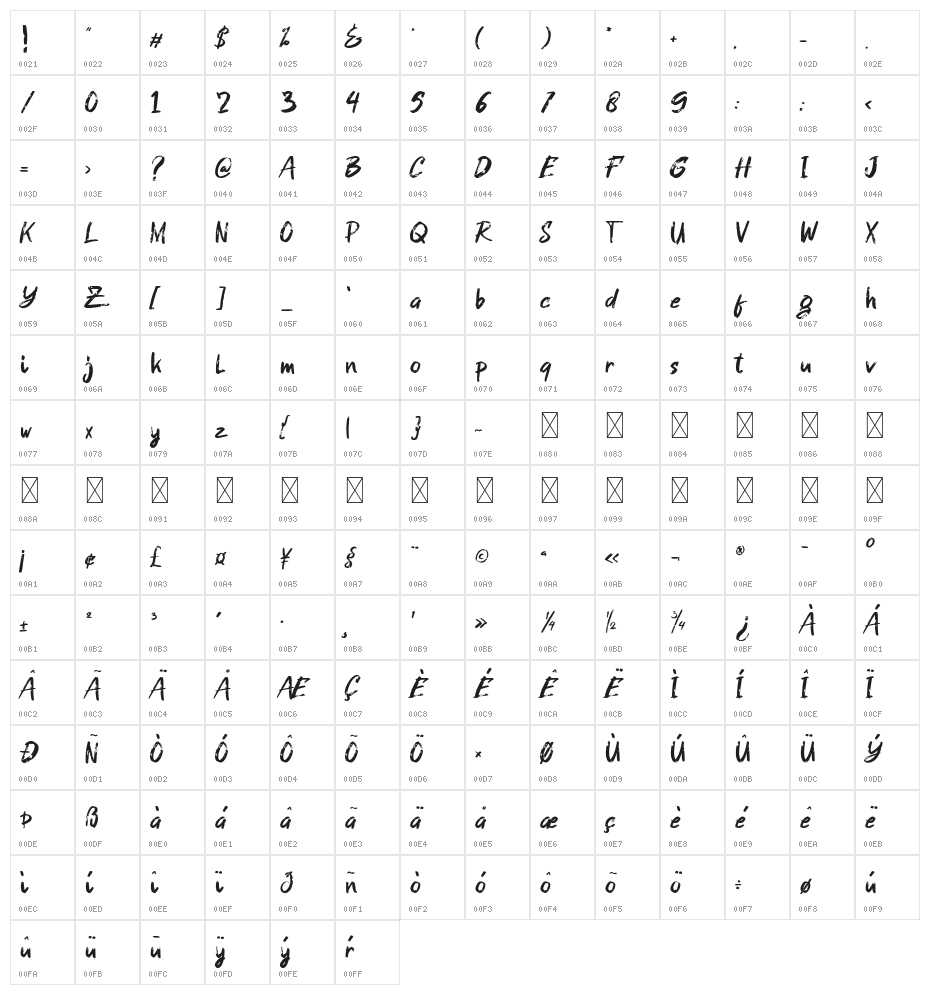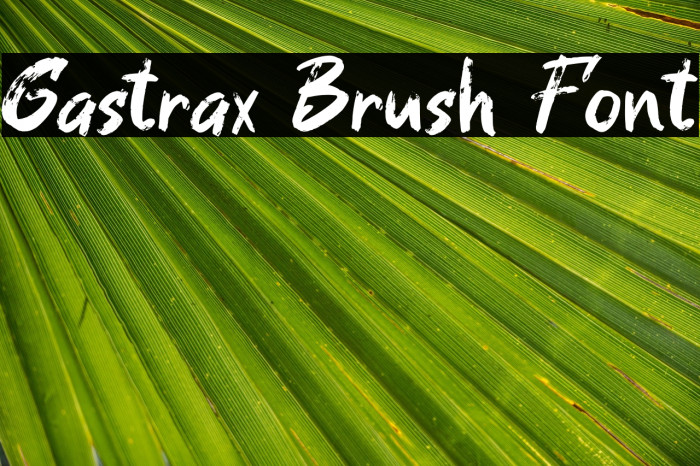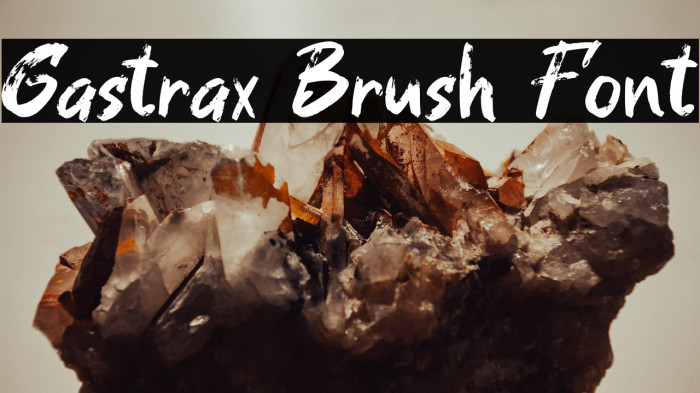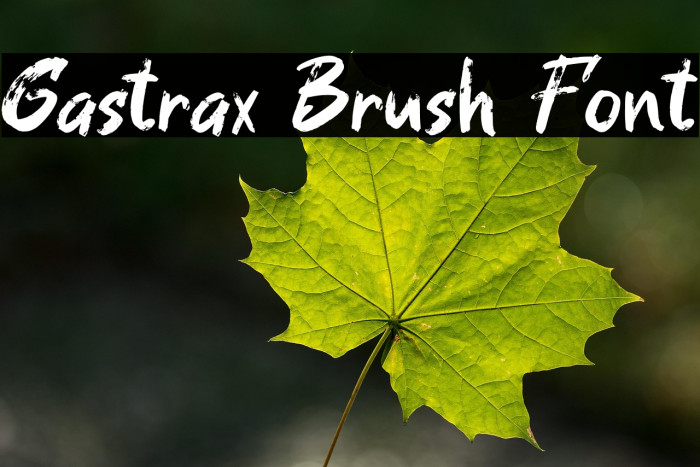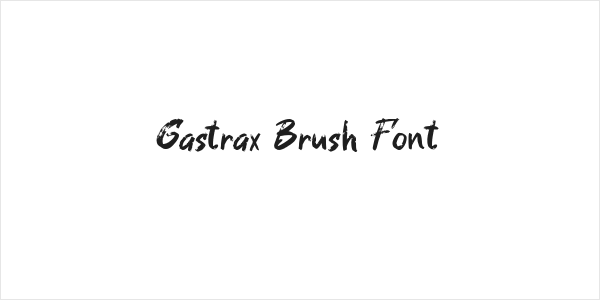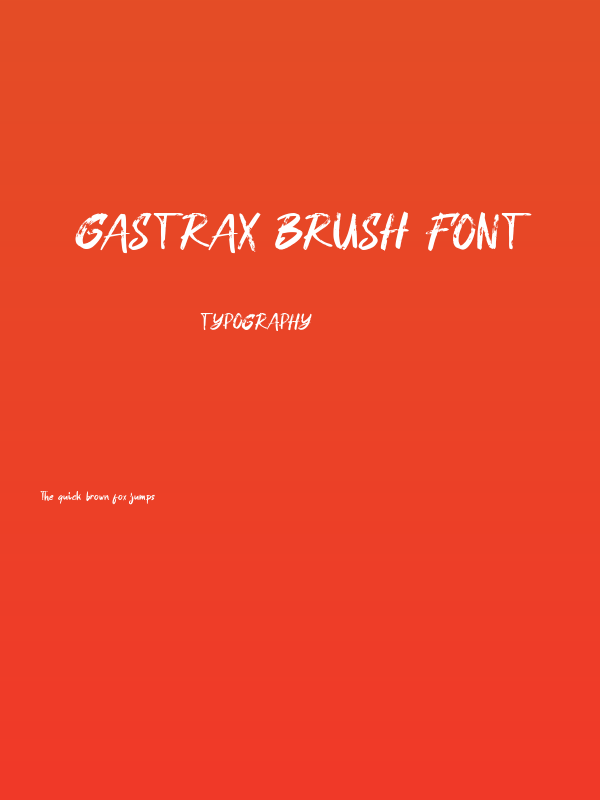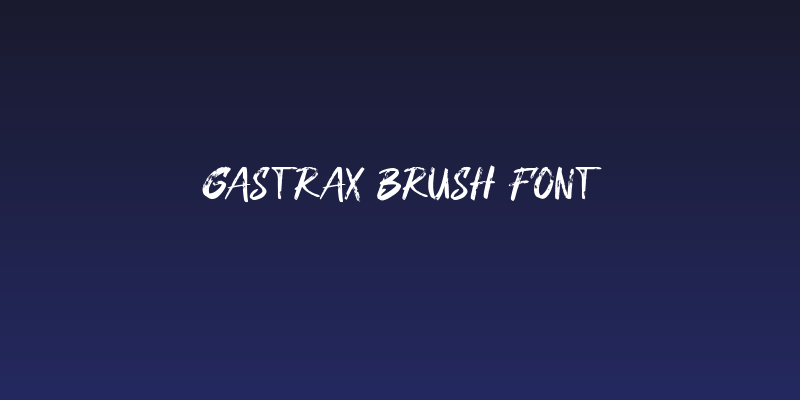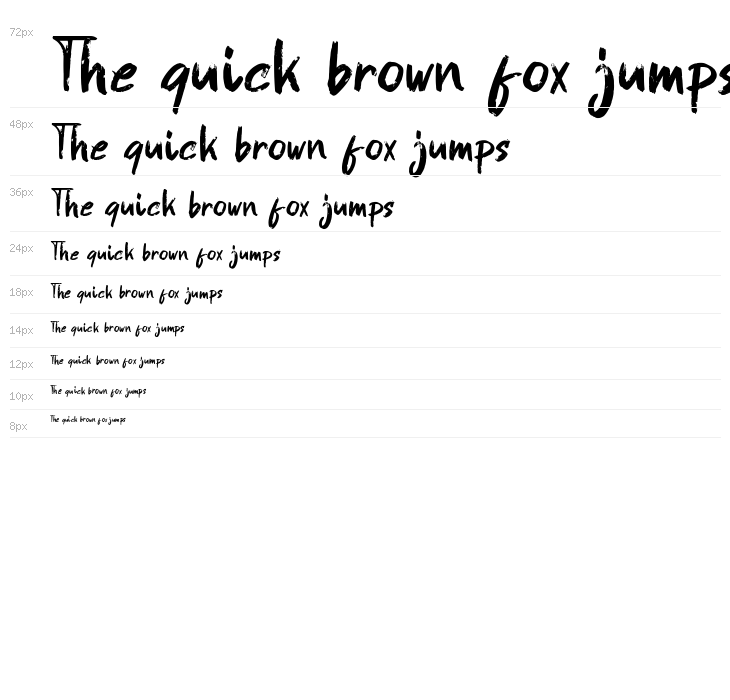
Gastrax Brush Font Font
Gastrax Brush Font Description
This font features a dynamic and energetic brush style, characterized by its bold and expressive strokes. The letters have a hand-painted appearance, with irregular edges and varying thickness that give it a lively and artistic feel. The uppercase and lowercase letters maintain a consistent style, while the numbers and special characters complement the overall aesthetic. This font's design is perfect for projects that require a personal touch or a creative flair, making it ideal for artistic and informal applications.